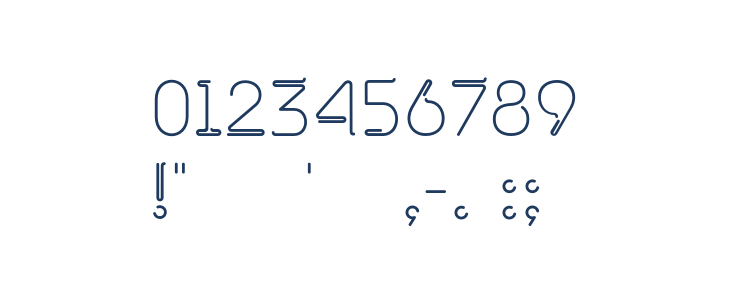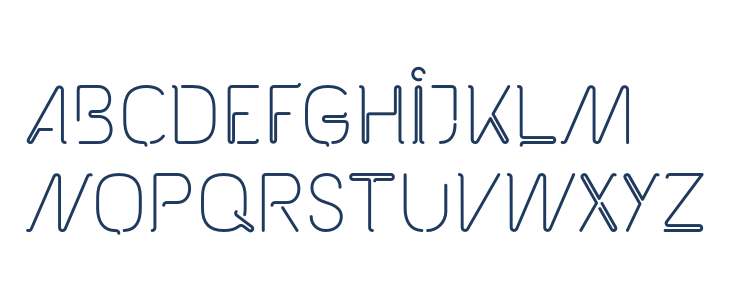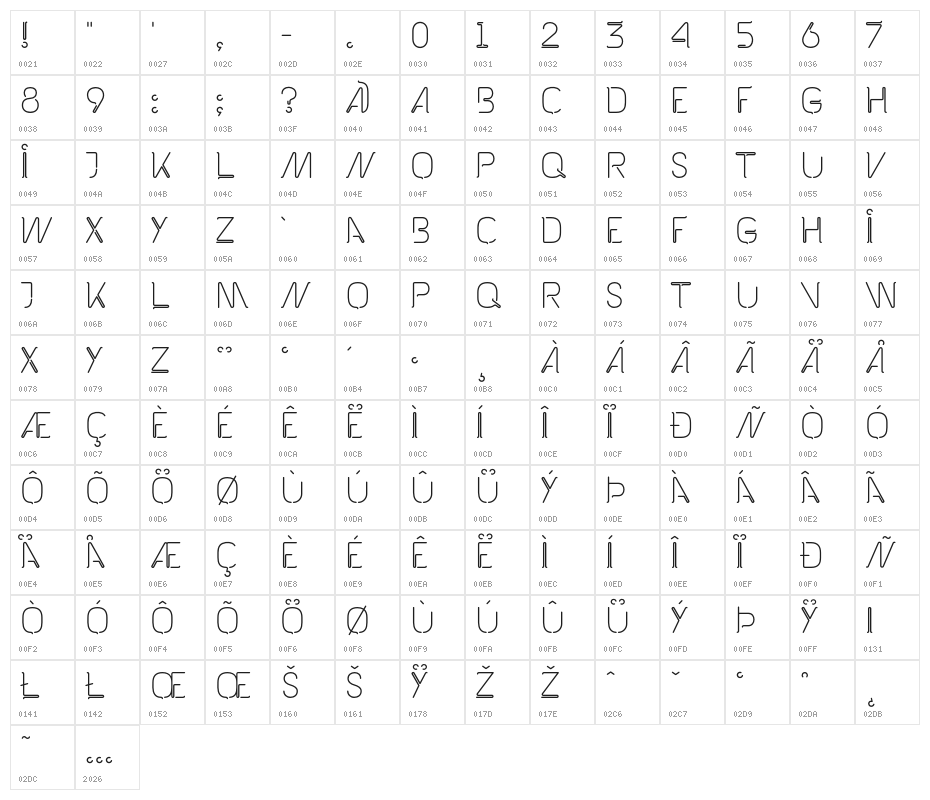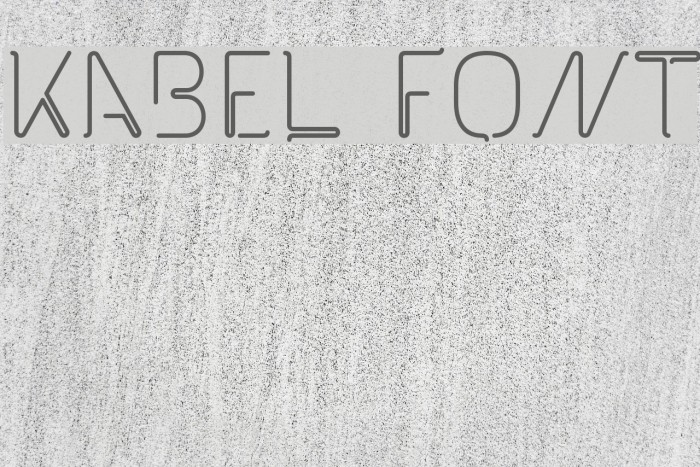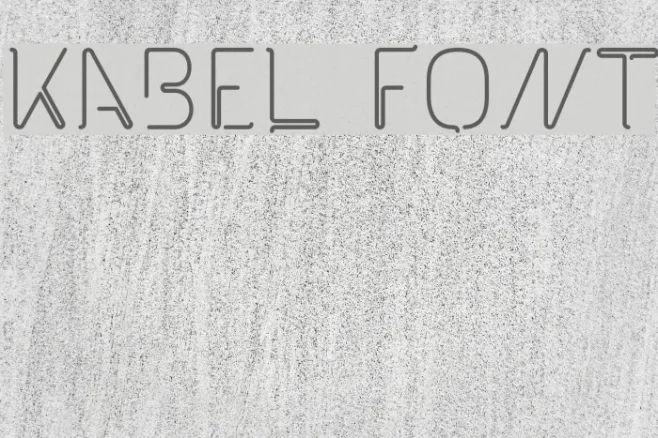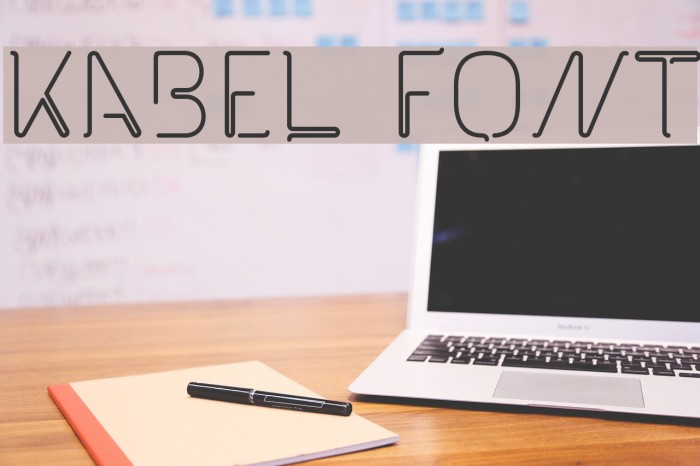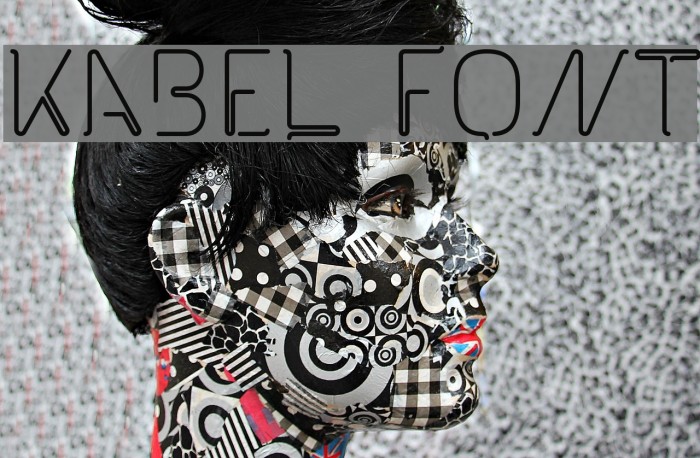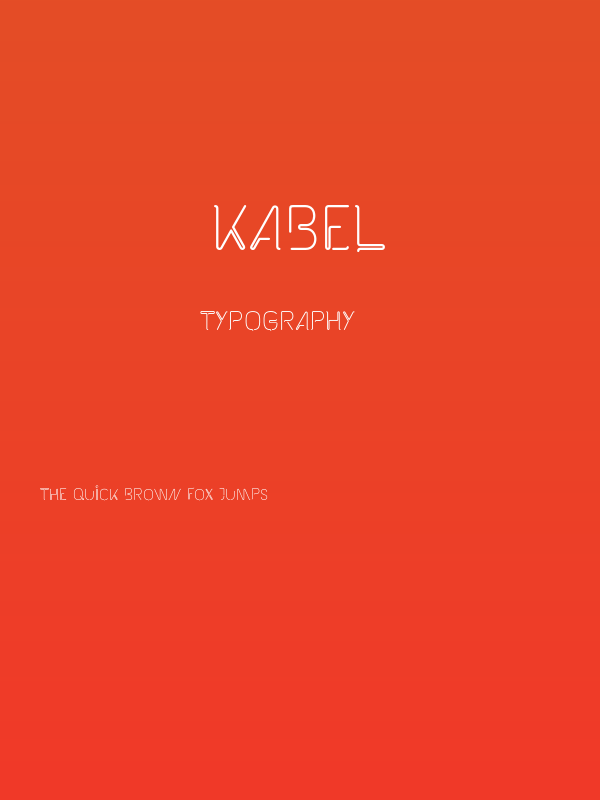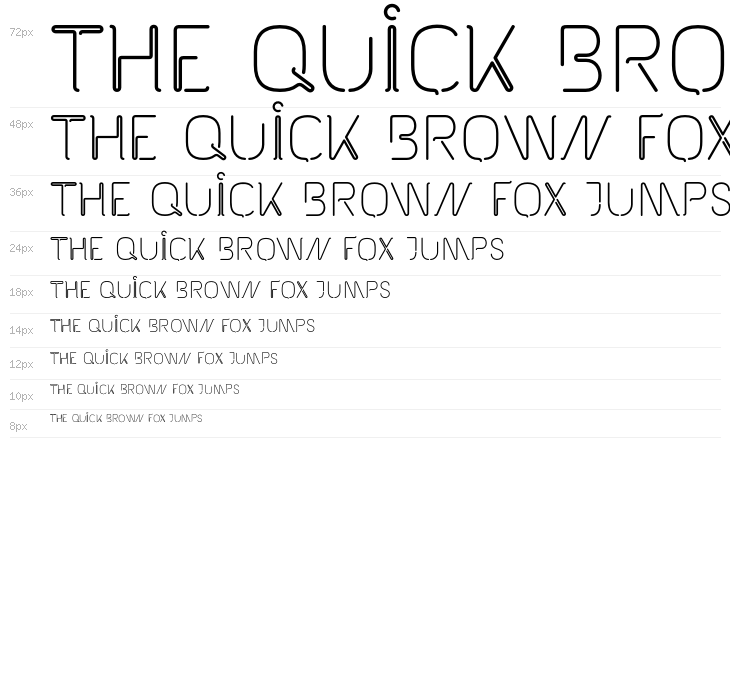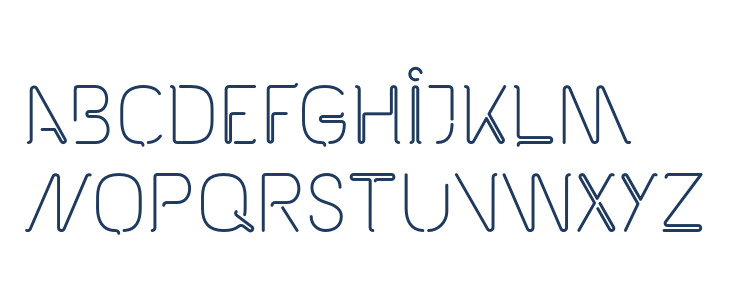
Kabel Font
Kabel Description
This font features a geometric and modern design with clean lines and a minimalist aesthetic. The characters are constructed with a consistent stroke width, giving it a uniform appearance. The uppercase letters are angular and sharp, while the lowercase letters maintain a similar geometric structure. The numerals are distinct and align well with the overall style, making them easily readable. Special characters are designed to complement the alphabet, maintaining the same geometric and clean style. This font is versatile and can be used in various design projects that require a modern and sleek look.